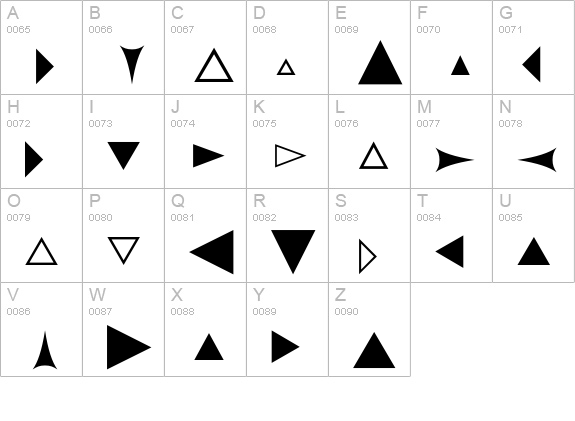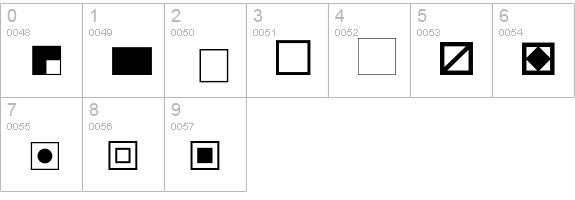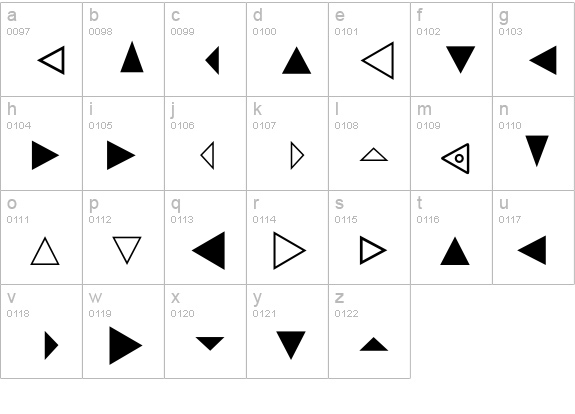
GeneralSymbolsP04 Font Details
GeneralSymbolsP04 is a versatile and elegant font that offers a wide range of symbols for various design projects. From arrows to shapes and icons, this font provides a comprehensive collection of symbols to enhance your creative work. With a sleek and modern design, GeneralSymbolsP04 is perfect for adding a touch of sophistication to your designs. The best part is that GeneralSymbolsP04 is available for free download at FontsMarket.com. This means you can easily access this high-quality font without any cost, making it a valuable addition to your font library. Whether you're designing a website, creating a poster, or working on a branding project, GeneralSymbolsP04 has the symbols you need to bring your ideas to life. Download GeneralSymbolsP04 today and elevate your design projects with its versatile collection of symbols.